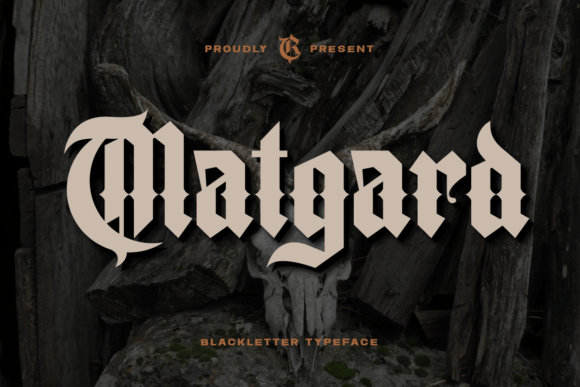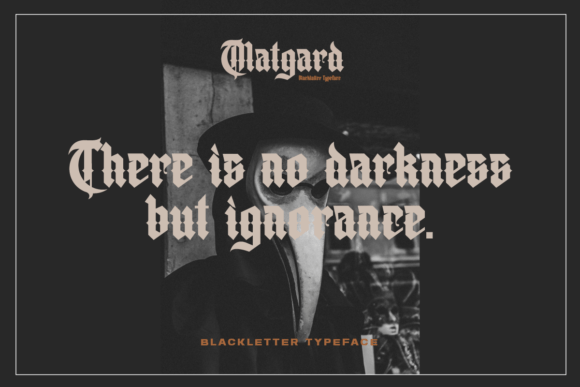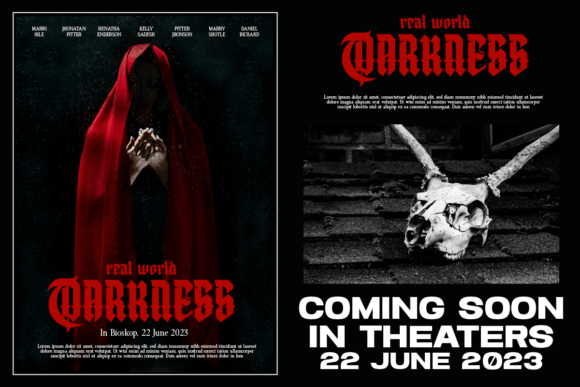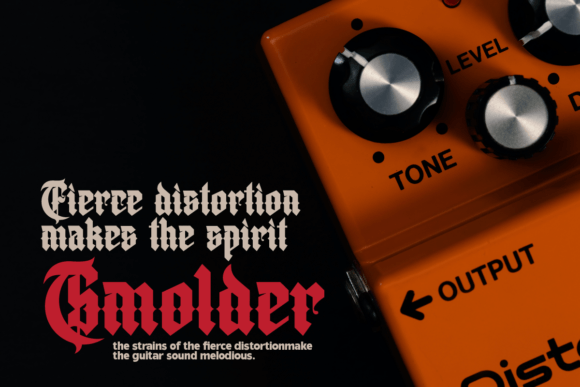
Matgard Font: Bold Blackletter for Unique Logo Design
About the Matgard Font
Make a bold statement with Matgard Font, a powerful and memorable font. Matgard is a high-contrast blackletter typeface, that adds a bold touch to your projects and will inspire you to create something unique and modern. This font is ideal for titles, flyers, greeting cards, product packaging, book covers, printed quotes, logotypes, clothing designs, branding, and album covers.
Matgard’s high contrast and bold strokes make it particularly effective for headlines, short impactful statements, and branding applications requiring a strong visual presence. It excels in logo design, posters, and packaging where its unique character can command attention. However, its intricate detail and heavy weight make it less suitable for body text or UI elements where readability is paramount. Avoid using it for lengthy paragraphs or small sizes.
The strong, almost rebellious personality of Matgard is best complemented by pairing it with a clean, modern sans-serif like Helvetica or a more geometric font for a balanced contrast. For a softer touch, a simple serif typeface such as Garamond or a delicate script font can be used for secondary text elements. These pairings provide visual breathing room, allowing Matgard’s boldness to shine without overwhelming the design.
Ultimately, Matgard is a statement font, best suited for brands projecting confidence, authority, or a touch of rebelliousness. Projects emphasizing heritage, craftsmanship, or high-end products would benefit from its distinctive character.
Matgard Font Usage Examples
Matgard Font Example